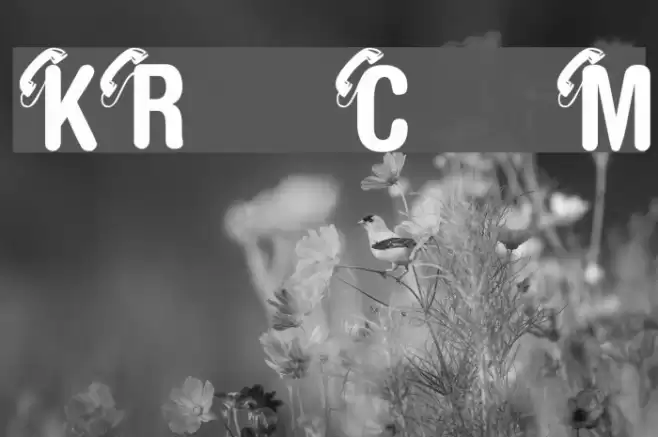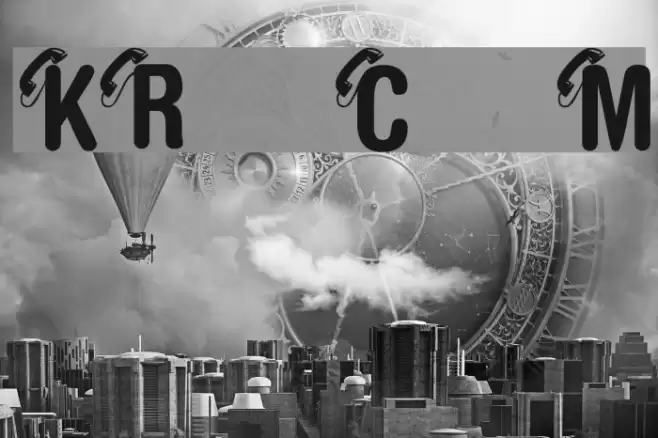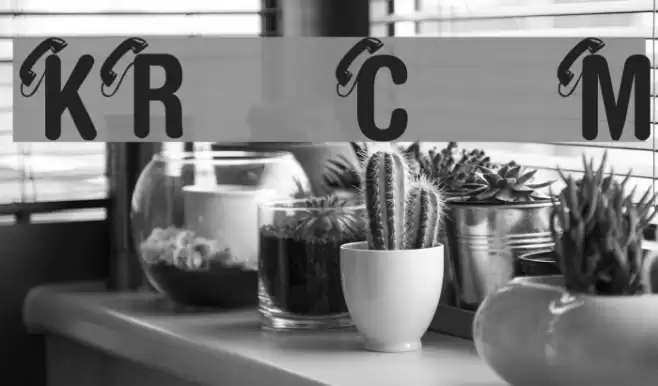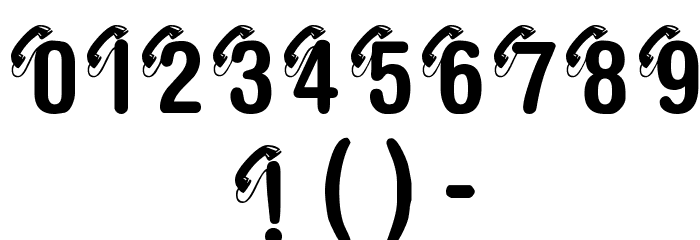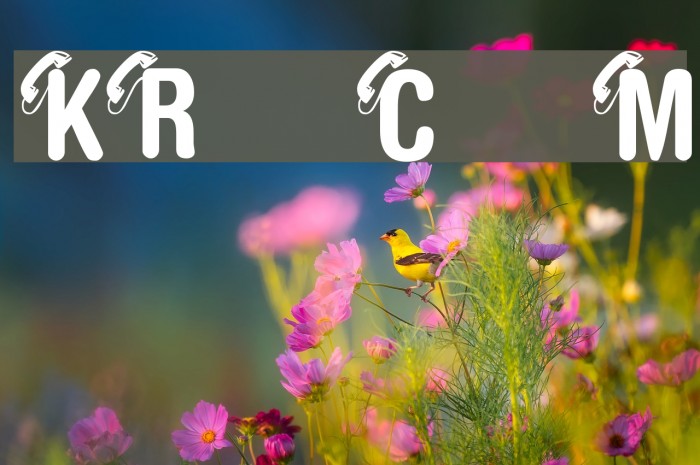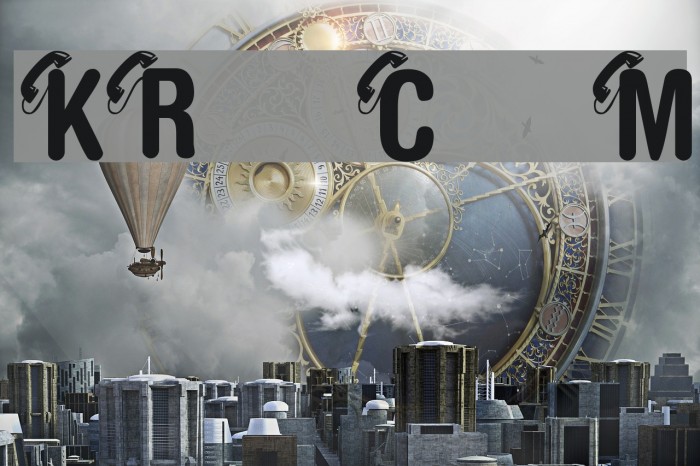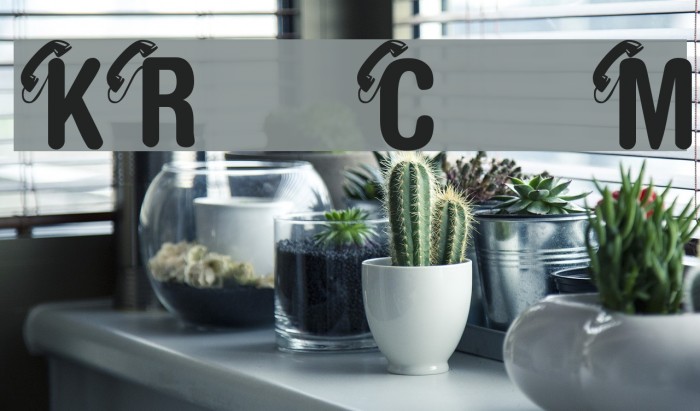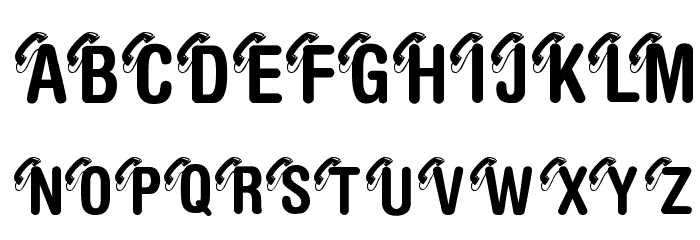
KR Call Me Font
KR Call Me Description
This playful and unique font features a telephone handset integrated into each character, adding a whimsical touch to the design. The letters are bold and rounded, with a consistent stroke width that gives them a friendly and approachable appearance. The handset motif is cleverly incorporated, making each character stand out while maintaining legibility. This font is perfect for projects that require a fun and distinctive look, such as children's books, playful branding, or themed event materials. The consistent style across uppercase, lowercase, numbers, and special characters ensures versatility in various design applications.
A playful font with telephone handsets integrated into each character from Uncategorized fonts.
- Proposed Projects: Ideal for children's books, playful branding, themed events, and creative posters.
- Overall Style: Playful, Whimsical